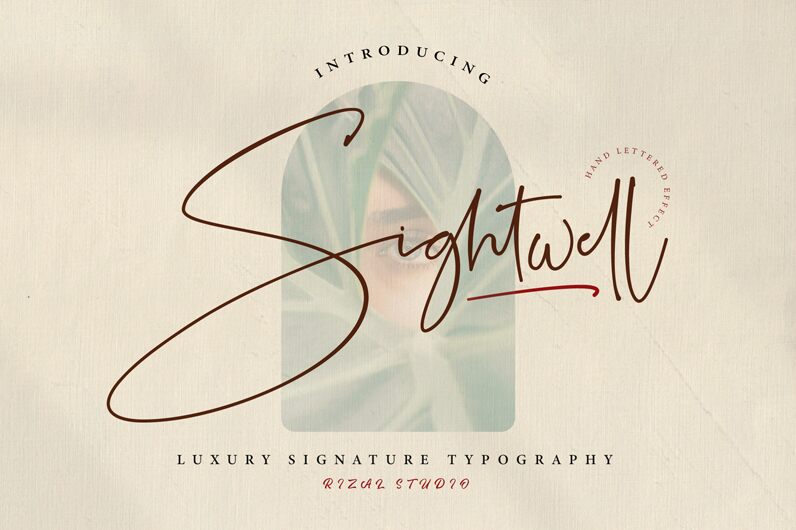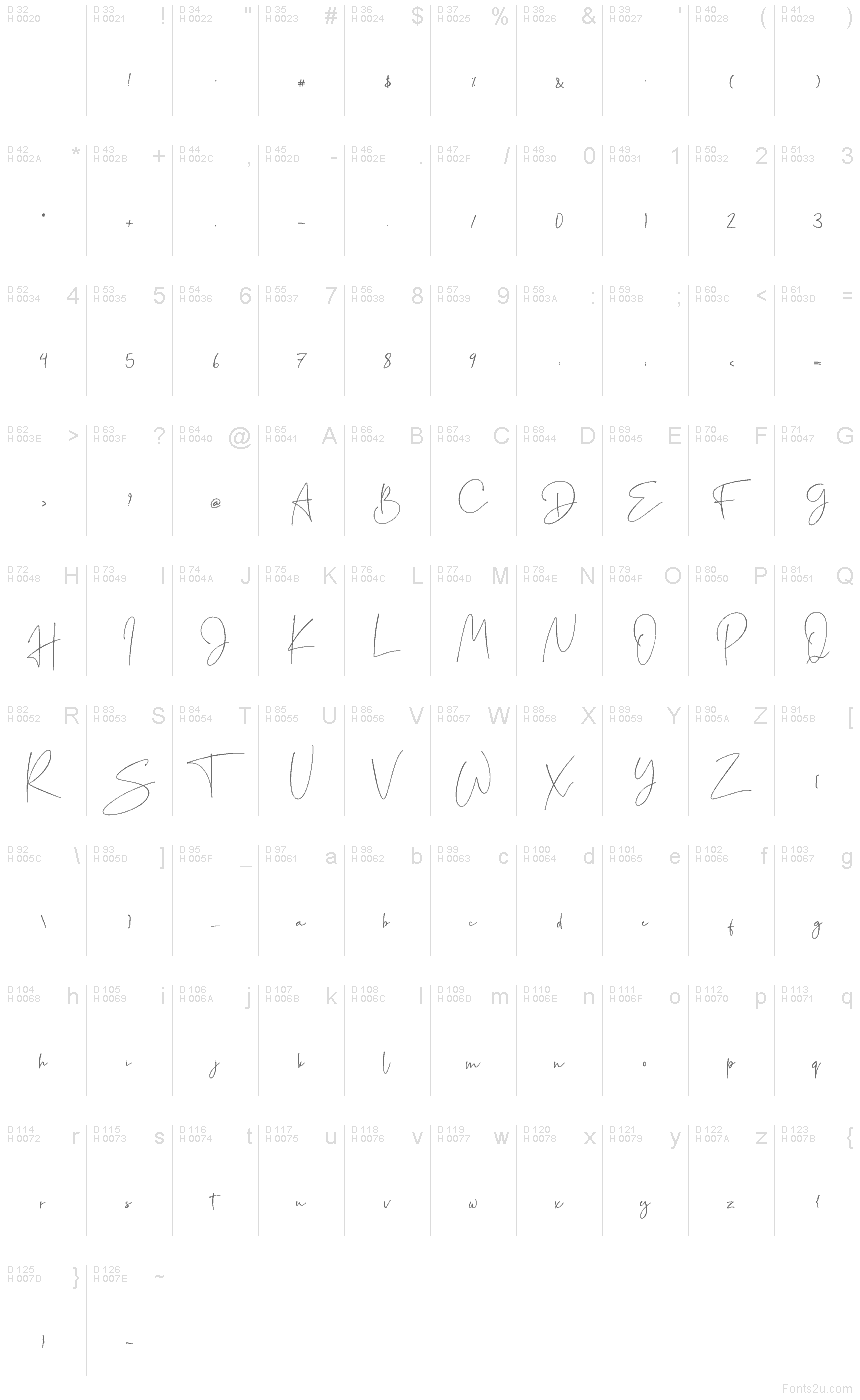
Sightwell Signature
Sightwell Signature font by Rizal Studio is a free handwritten font that captures the breezy ease of a quick, confident autograph. Its lines are ultra-fine and slightly irregular, like ink gliding across smooth paper, giving every word a personal, one-of-a-kind feel. This signature-style typeface brings a relaxed elegance that instantly softens sharp layouts and adds a human touch without looking childish or messy.
Using Sightwell Signature, you can give logos, social media posts, invitations, thank-you cards, product packaging, and branding boards a refined handwritten accent that feels intimate yet modern. The generous letter spacing keeps even long names airy and readable at larger sizes. For a simple pairing trick, set headlines in a clean sans serif and let this free font handle names, taglines, or short phrases as a graceful handwritten highlight.